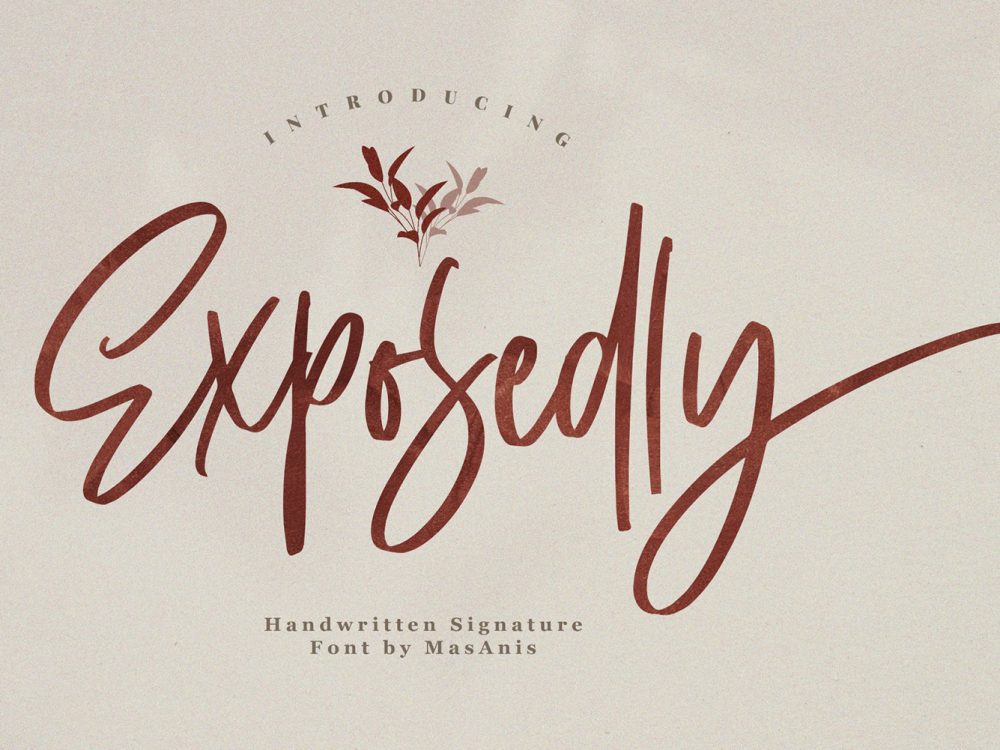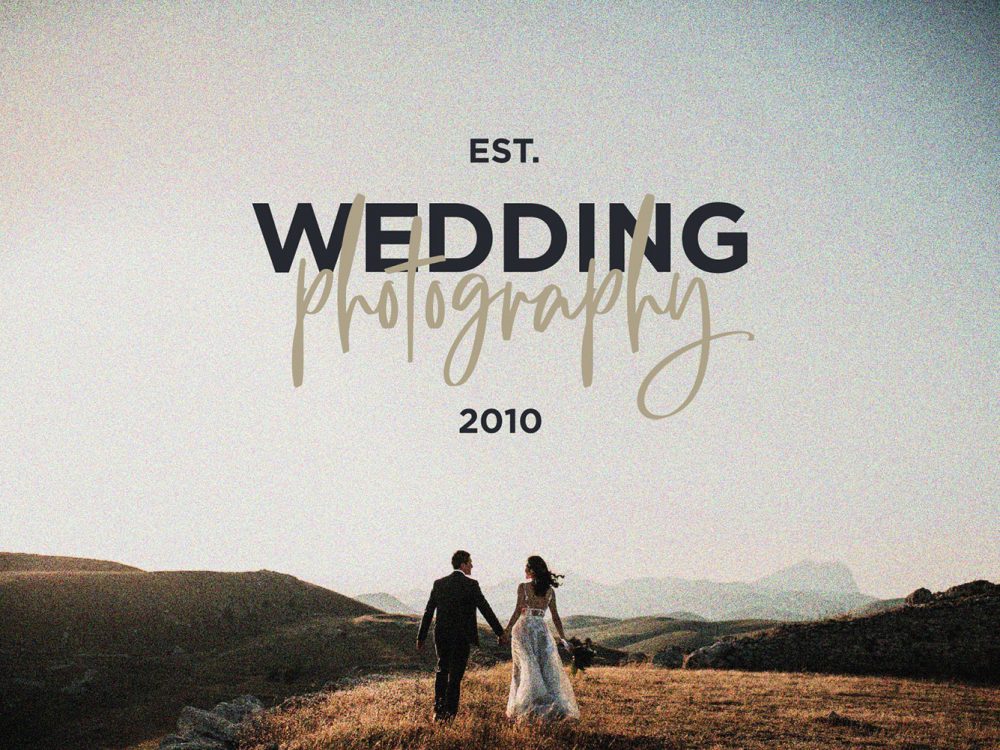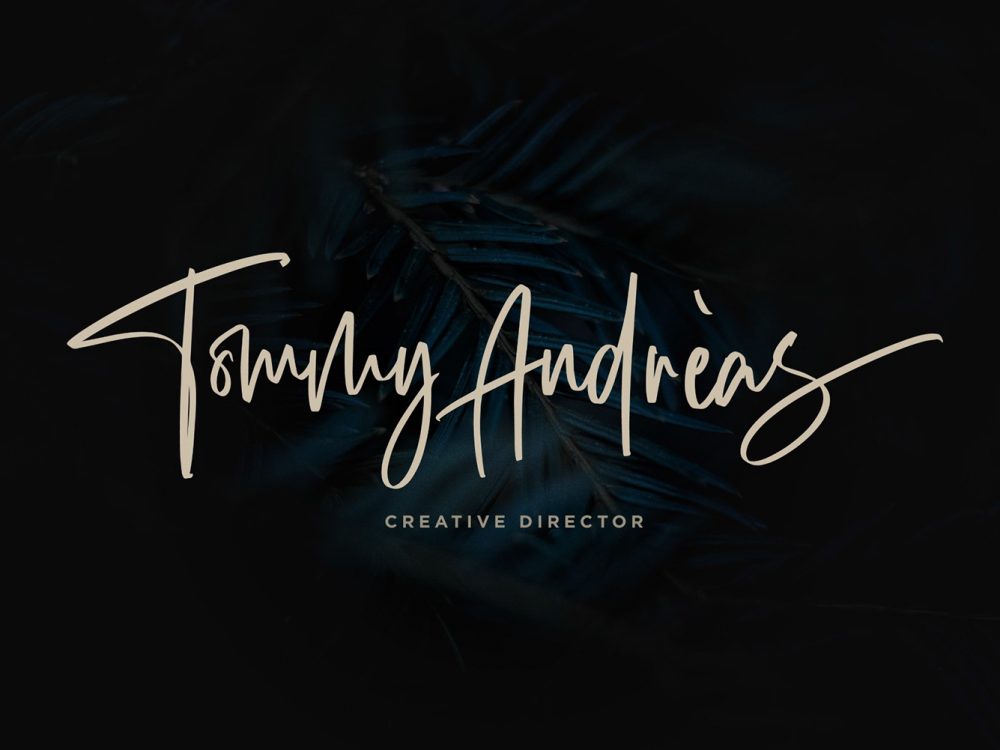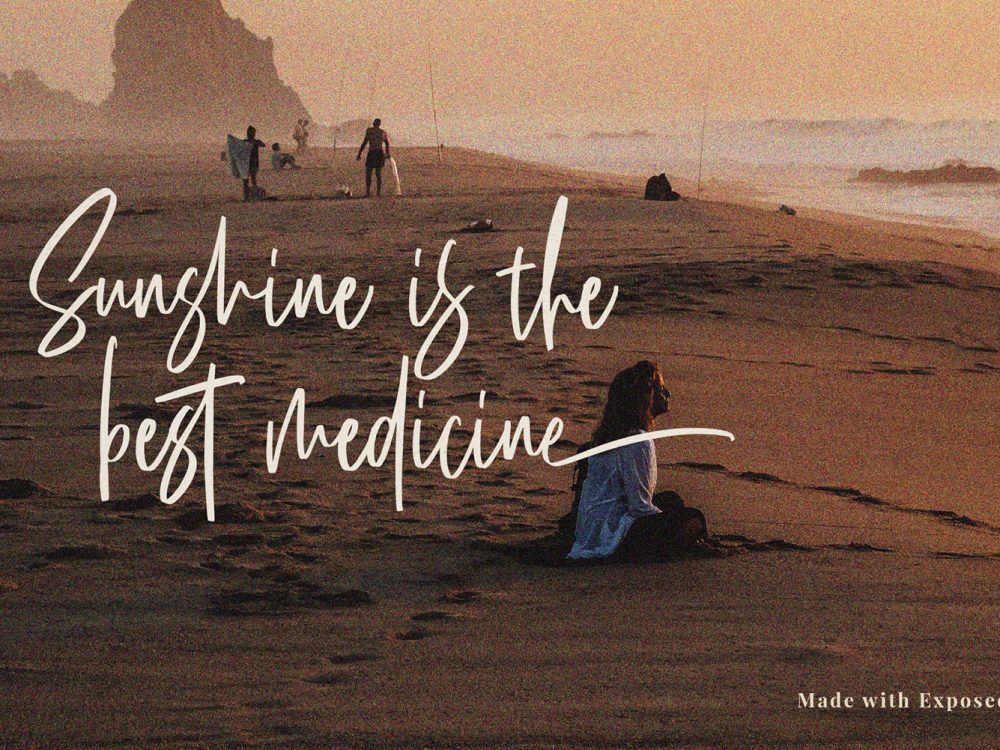
Exposedly Free Font
Exposedly Free Font is an interesting, modern handwritten typeface that features an elegant calligraphic style. This font is very suitable for creating various projects that require a script font. You can use this font to create memorable posters, wedding invitations, greeting cards, branding, flyers, t-shirt and pillow prints, and more. Improve the quality and increase the popularity of your design projects using this font. If you like it don’t forget to check out the full version.